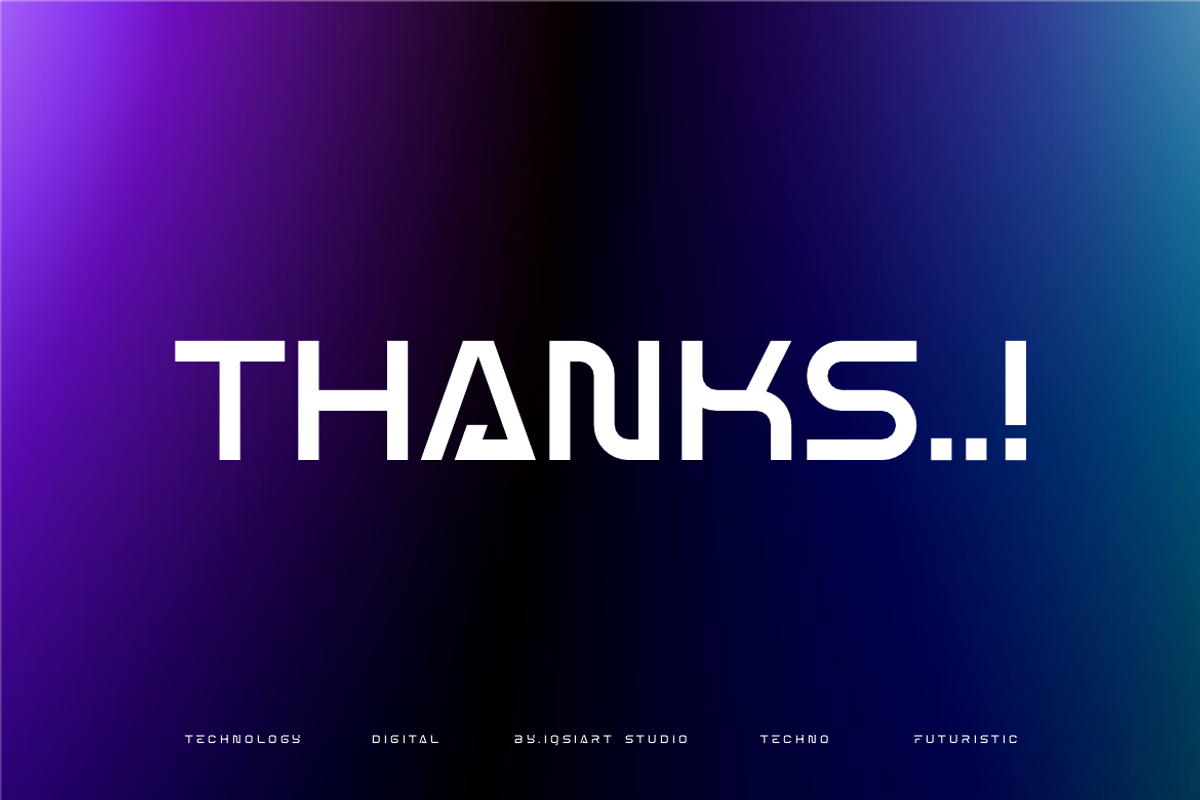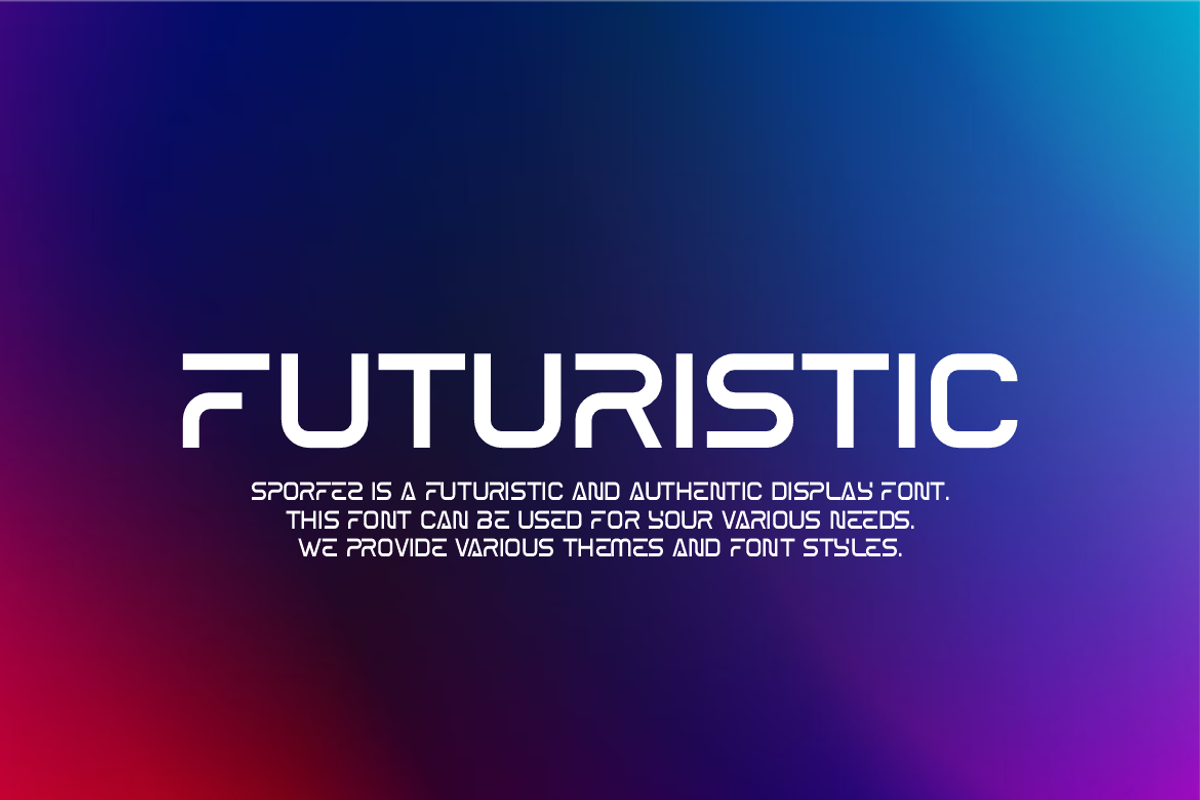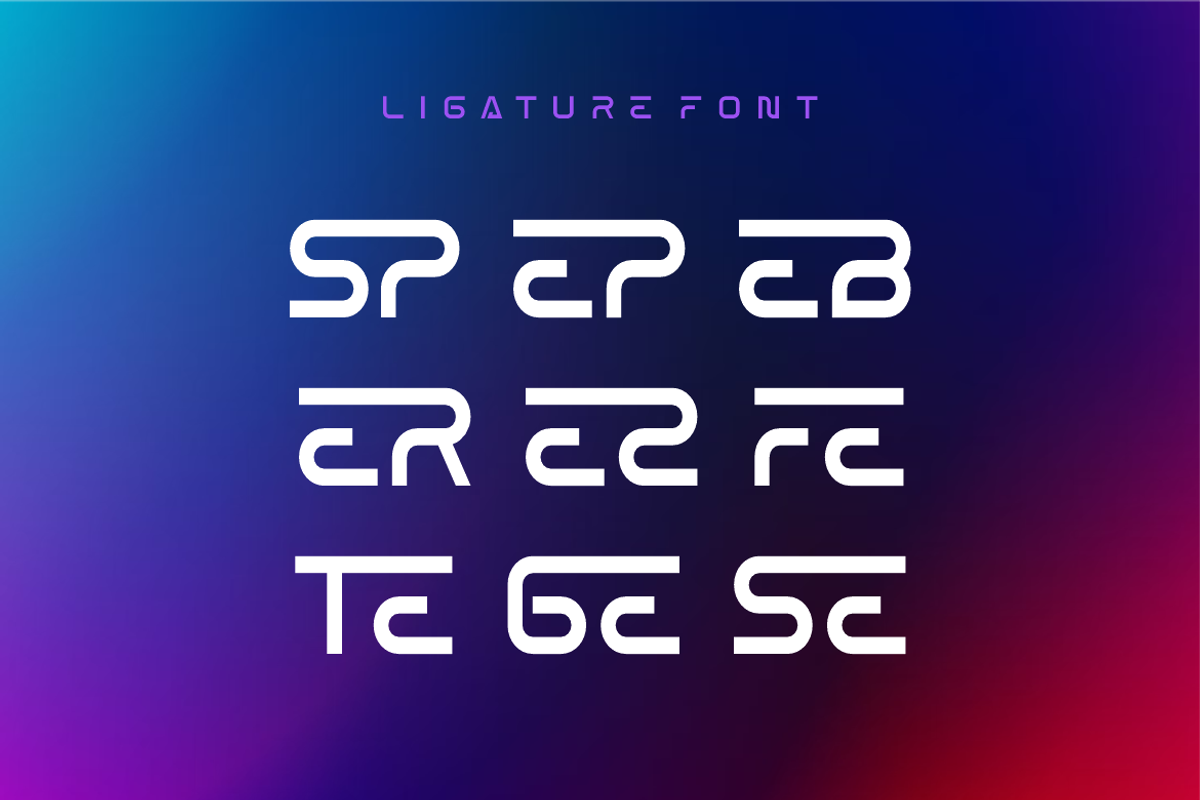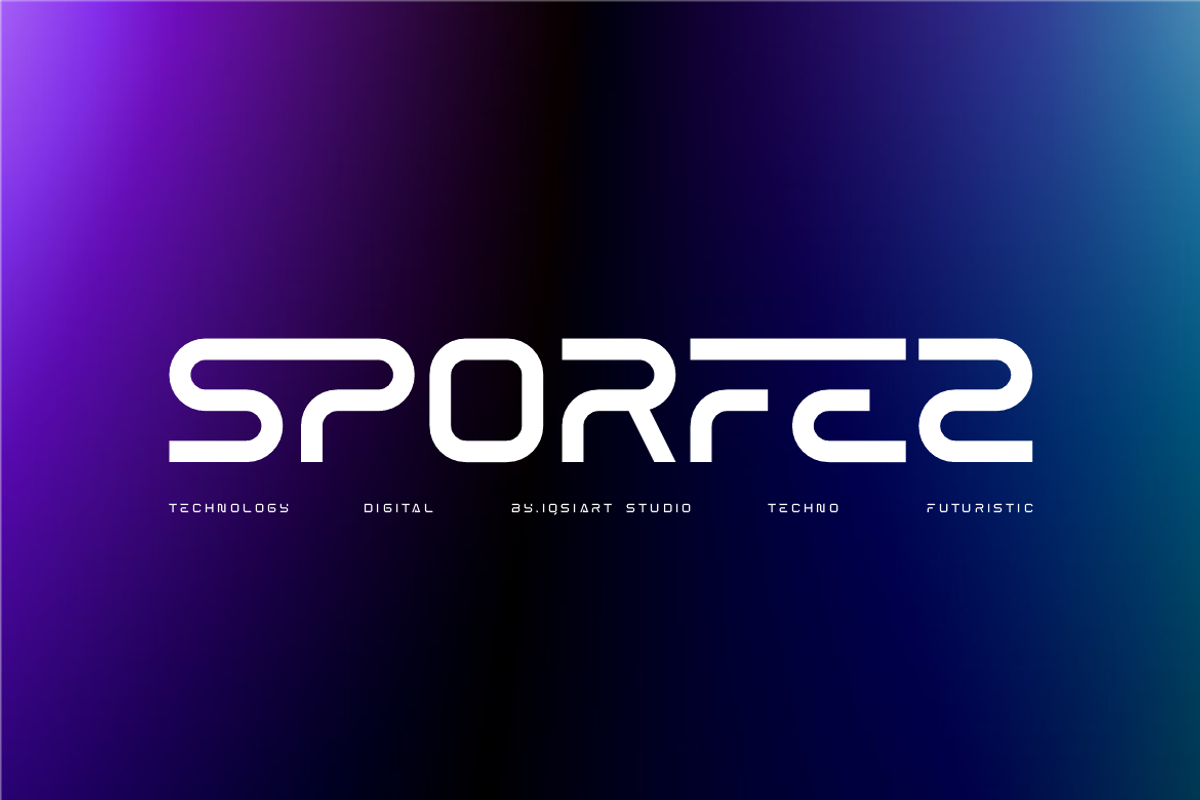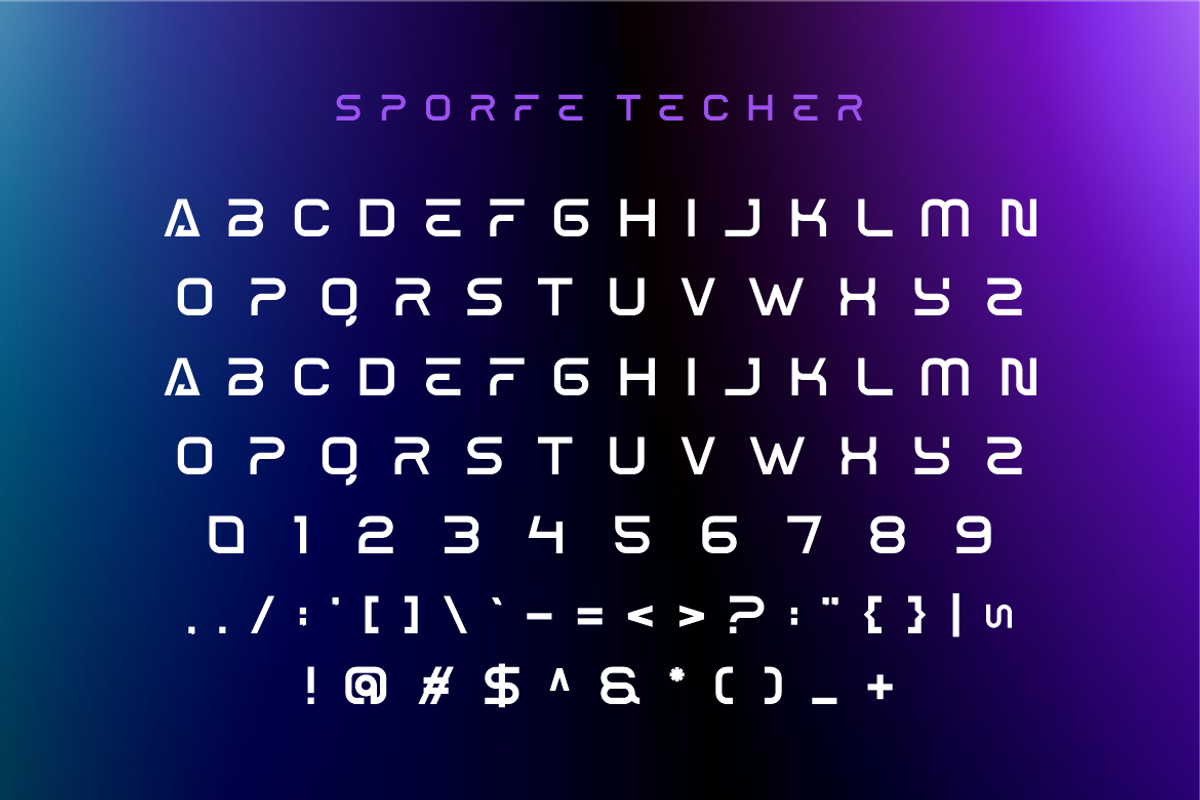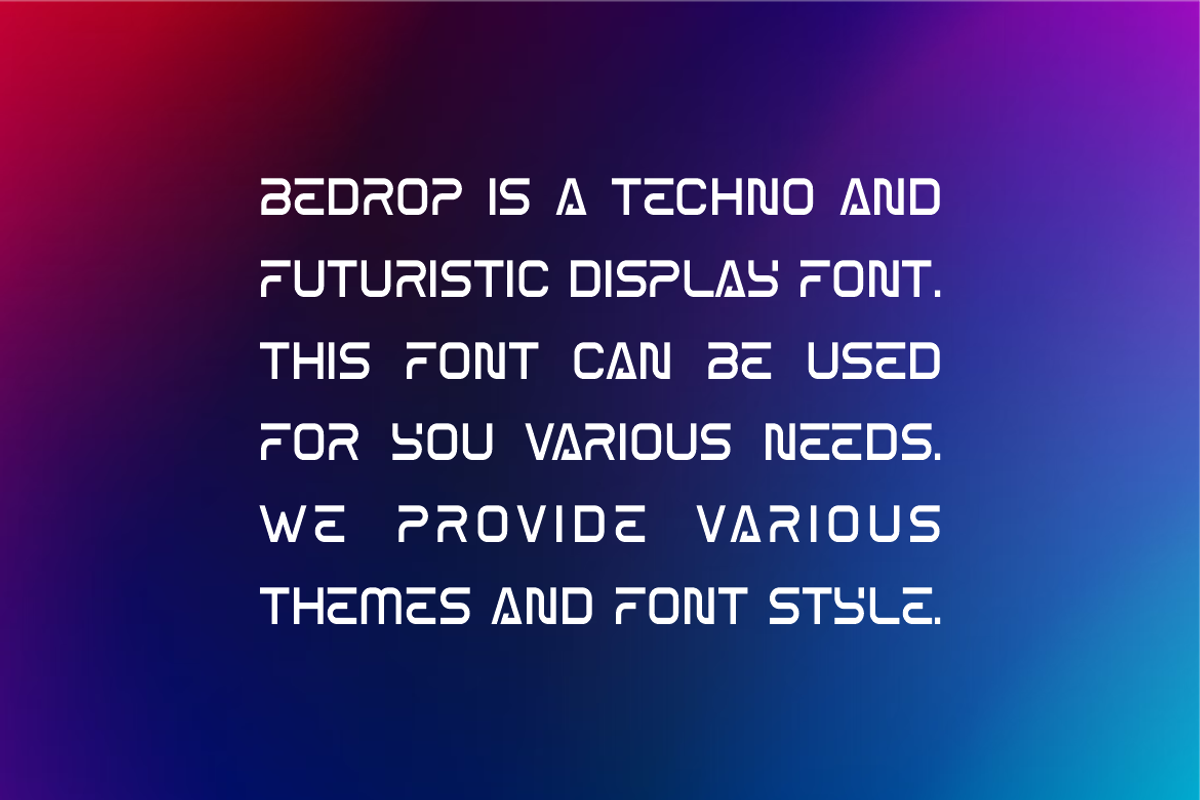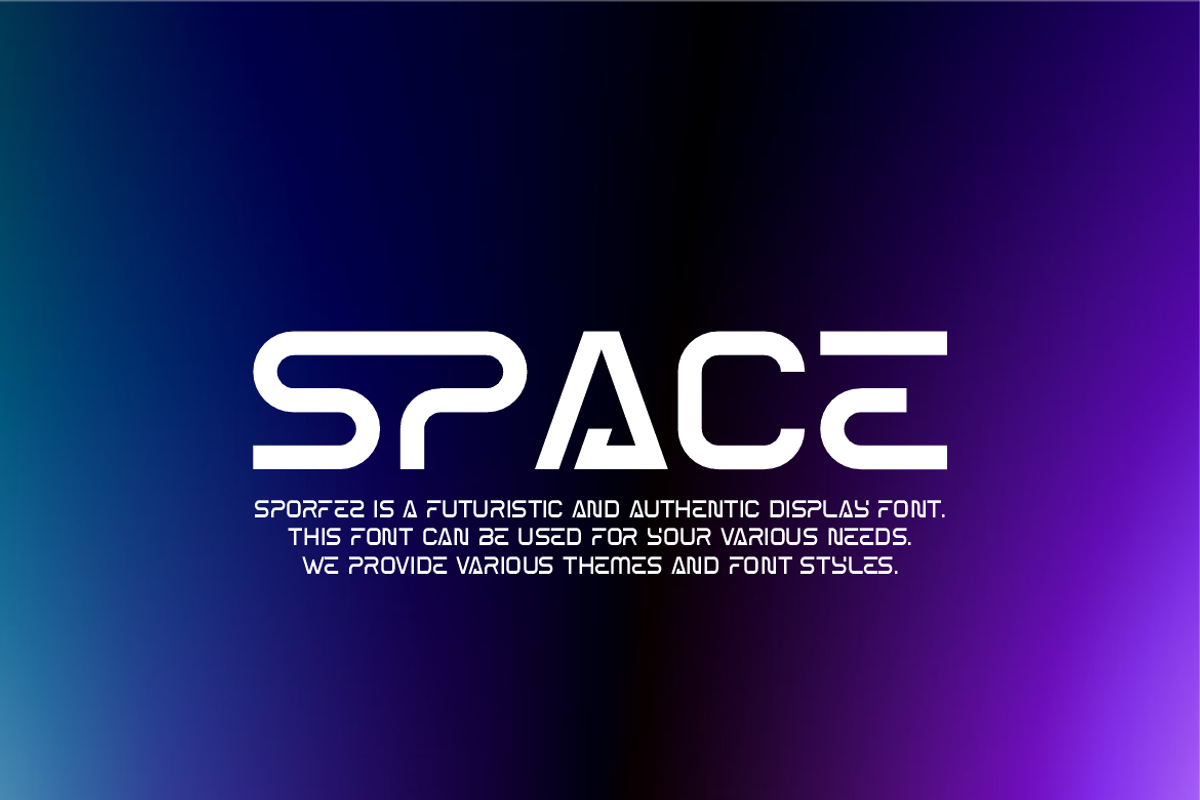
Sporfez - Futuristic Techno Font
Sporfez Font is a best and authentic display font. This font can be used for your various needs. We provide various themes and font styles. visit our profile to get a wide variety of themes and different font styles you need.